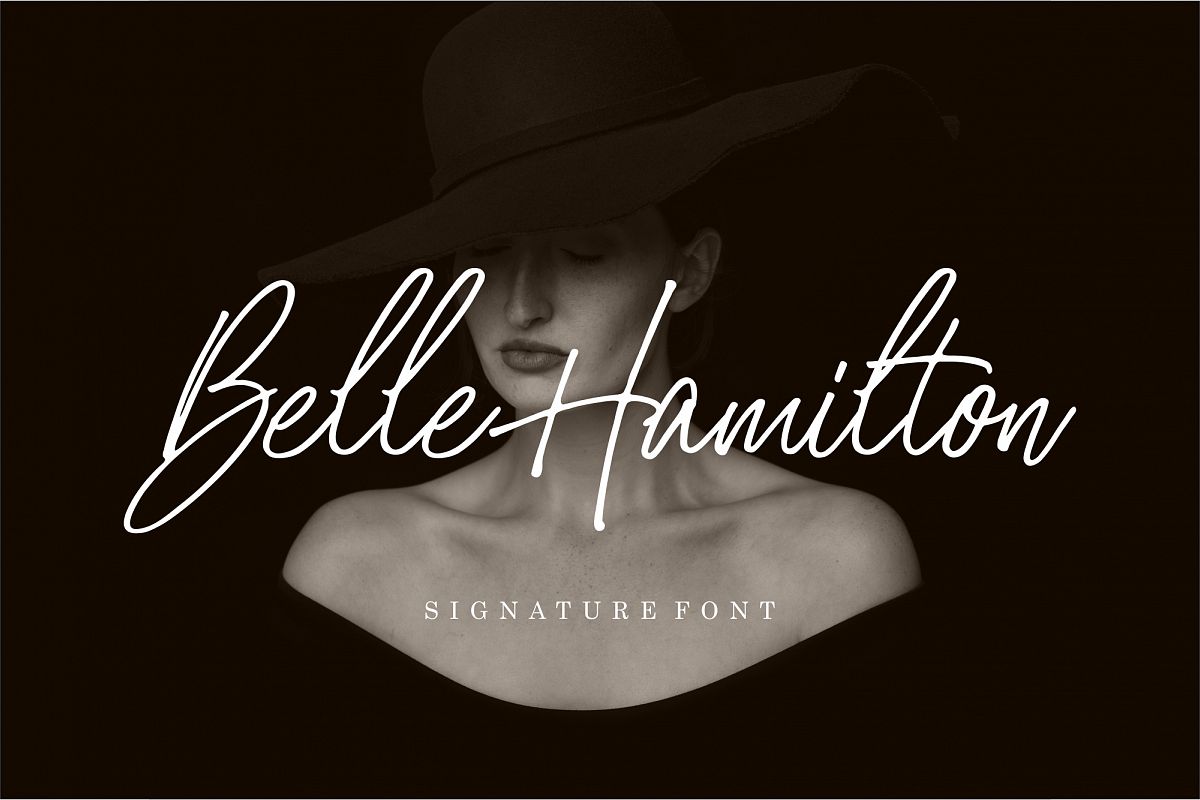
Belle Hamilton is a beautiful signature font with the natural flow. Belle Hamilton signature style perfectly on invitations, logotype, branding, art quote, cards, product packaging, headers, letterhead, apparel design, label, and etc. Belle Hamilton comes with uppercase, lowercase, numerals, punctuation, multilingual characters.
Features:- Stylistic Alternate
- Ligature